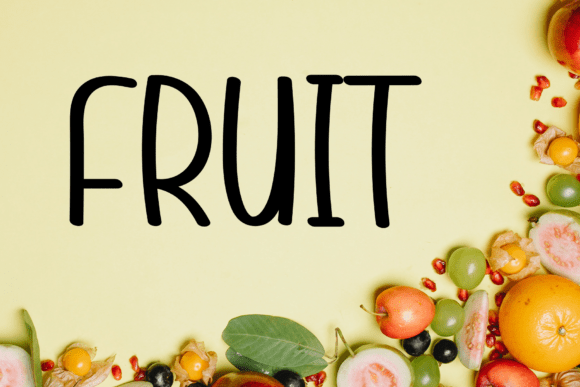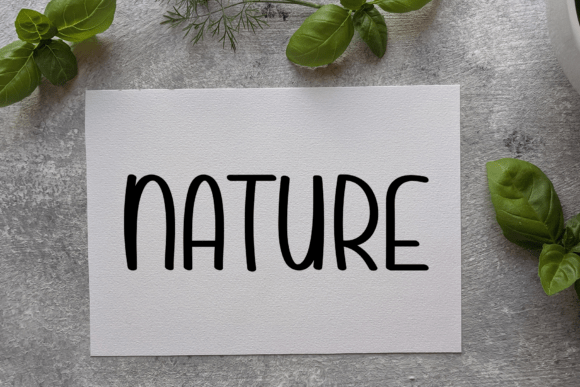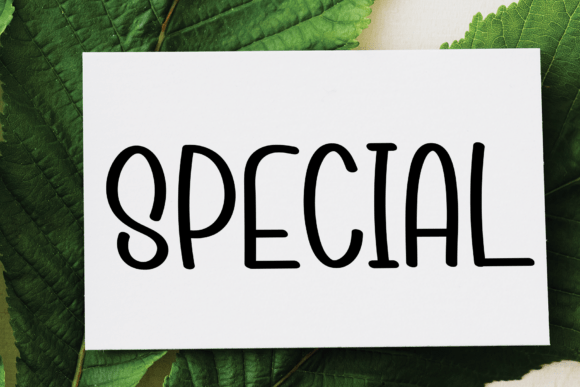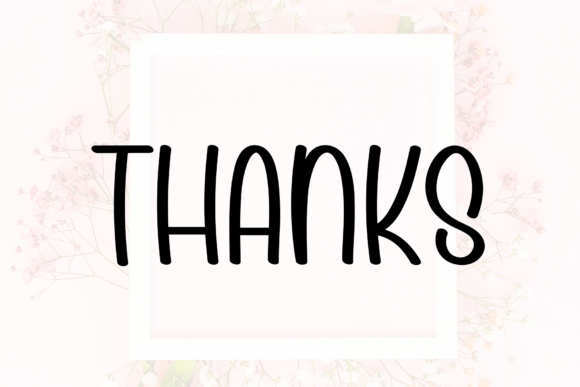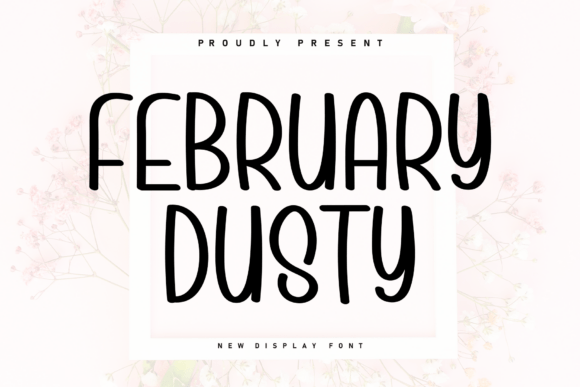
Introducing February Dusty: The Charming Handwritten Font for Your Design Projects
Are you looking for a font that adds a touch of warmth and personality to your design projects? Look no further than February Dusty, a charming handwritten font that is sure to capture your audience’s attention. With its smooth strokes and organic lines, this beautiful font is perfect for creating a relaxed atmosphere that resonates with your target audience.
The Characteristics of February Dusty
February Dusty is a unique and elegant handwritten font that boasts a range of characteristics that make it stand out from other fonts. Some of its key features include:
- Smooth Strokes: The font features smooth, flowing strokes that give it a natural and effortless look.
- Organic Lines: The organic lines of February Dusty add a touch of whimsy and charm to any design project.
- Heartfelt Perfection: The font is filled with a sense of heartfelt perfection, making it perfect for designs that require a personal touch.
February Dusty is a versatile font that can be used for a wide range of design projects, including:
- Branding: Use February Dusty to create a unique and memorable brand identity that sets you apart from the competition.
- Invitations: Add a touch of elegance and sophistication to your invitations with this beautiful handwritten font.
- Social Media Graphics: Use February Dusty to create eye-catching social media graphics that capture your audience’s attention.
- Stationery: Create beautiful stationery, such as letterheads, business cards, and thank-you cards, with February Dusty.
Why Choose February Dusty?
There are many reasons why February Dusty is the perfect choice for your design projects. Here are just a few:
- Unique and Memorable: February Dusty is a one-of-a-kind font that will help your design projects stand out from the crowd.
- Easy to Read: The font is clear and easy to read, making it perfect for designs that require a lot of text.
- Customizable: February Dusty can be easily customized to fit your design needs, making it a versatile choice for any project.
Tips for Using February Dusty
Here are a few tips for getting the most out of February Dusty:
- Use it with Images: Pair February Dusty with beautiful images to create stunning visual designs.
- Experiment with Colors: Try out different color combinations to find the perfect match for your design project.
- Keep it Simple: Don’t be afraid to keep your design simple and elegant – February Dusty will do the rest.
February Dusty is a charming handwritten font that is sure to add a touch of warmth and personality to your design projects. With its smooth strokes, organic lines, and heartfelt perfection, this beautiful font is perfect for creating a relaxed atmosphere that resonates with your target audience. Whether used for branding, invitations, or social media graphics, February Dusty is a versatile and unique font that is sure to capture your audience’s attention.